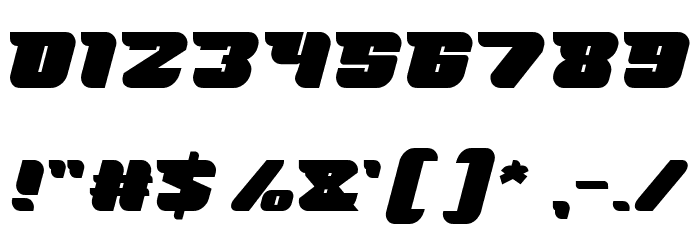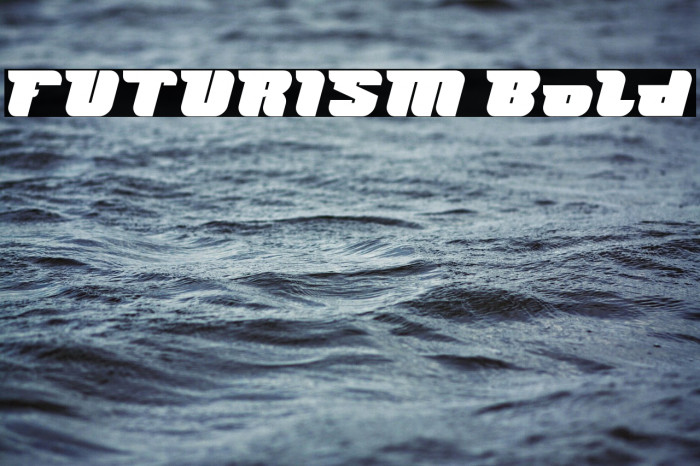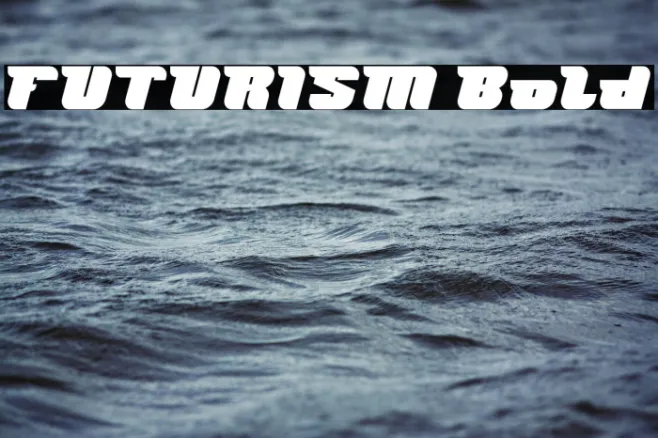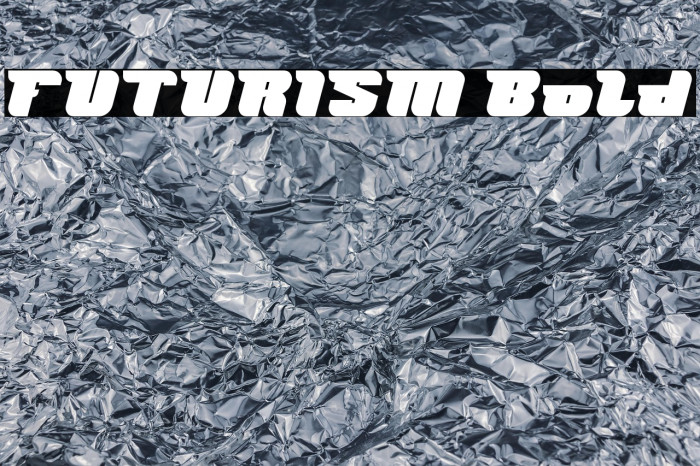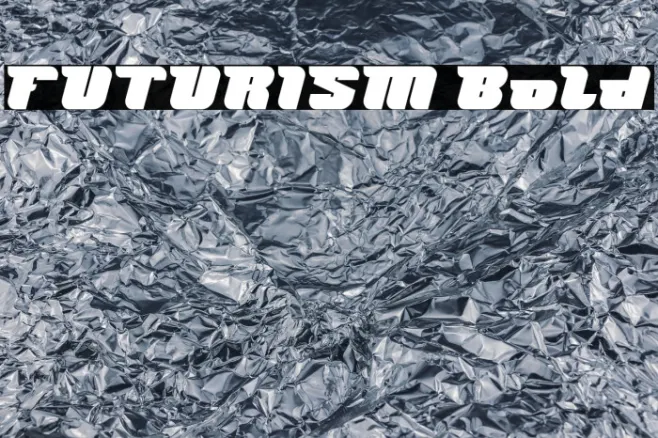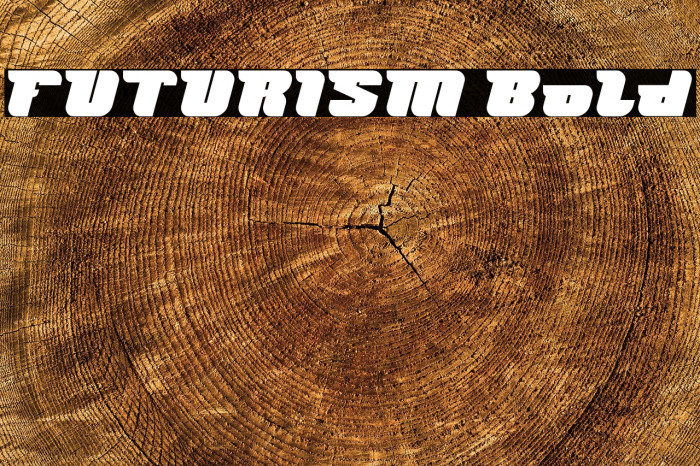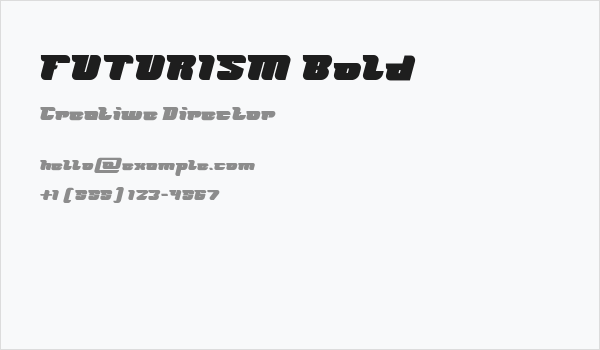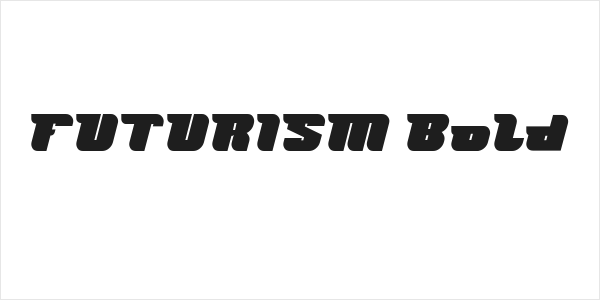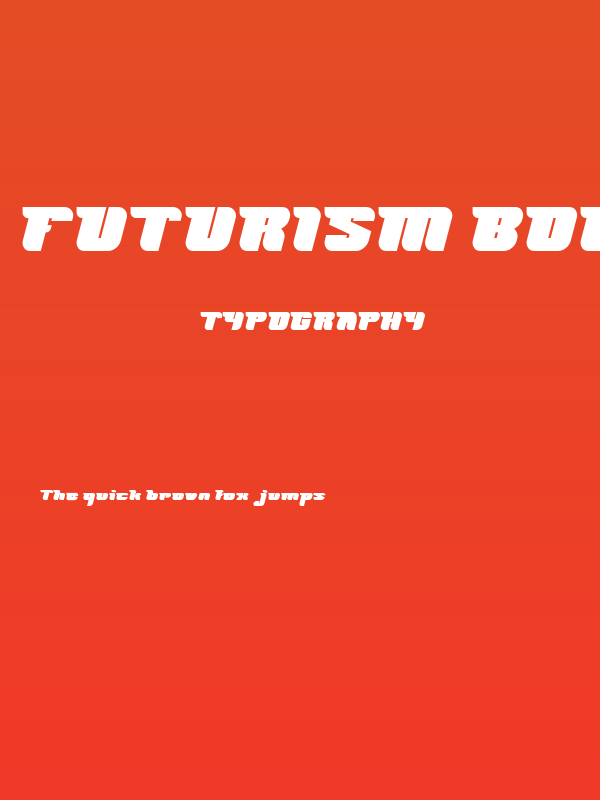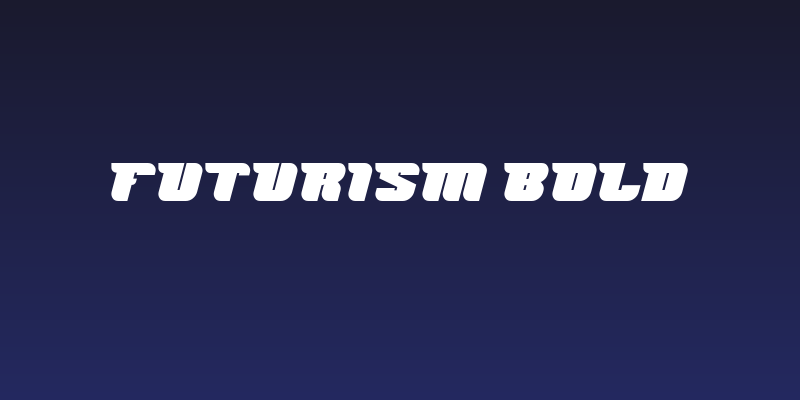
FUTURISM Bold Font
FUTURISM Bold Description
This font features a bold and futuristic design with a strong geometric influence. The characters are thick and blocky, with sharp angles and a distinct slant that gives them a sense of motion and dynamism. The uppercase and lowercase letters maintain a consistent style, with the lowercase being slightly more compact. Numbers and special characters follow the same bold and angular aesthetic, ensuring uniformity across all glyphs. The font's unique style makes it stand out, perfect for projects that require a modern and edgy look.
| Proposed Projects | Ideal for sci-fi themed posters, video game titles, technology branding, and futuristic event flyers. |